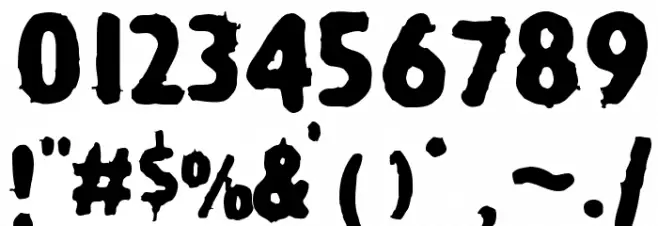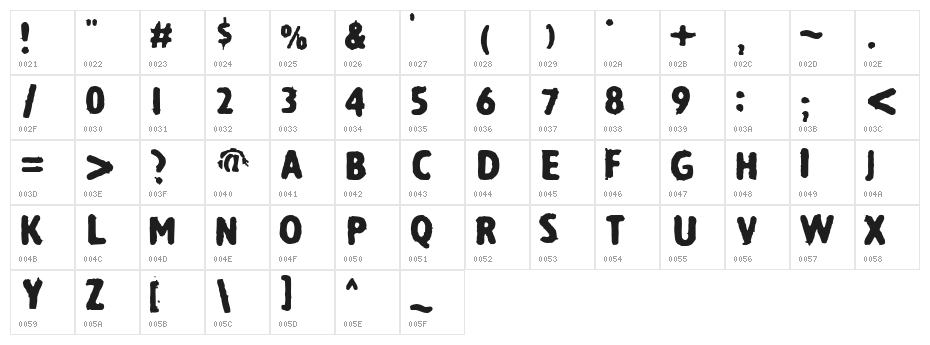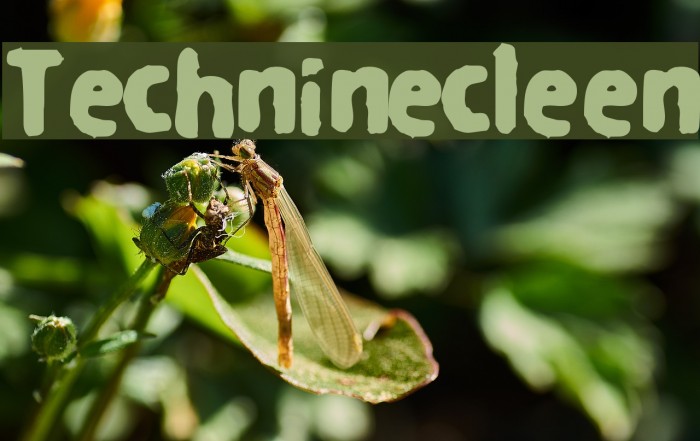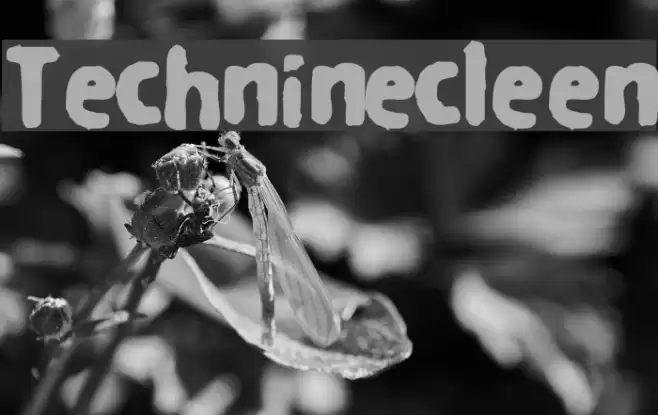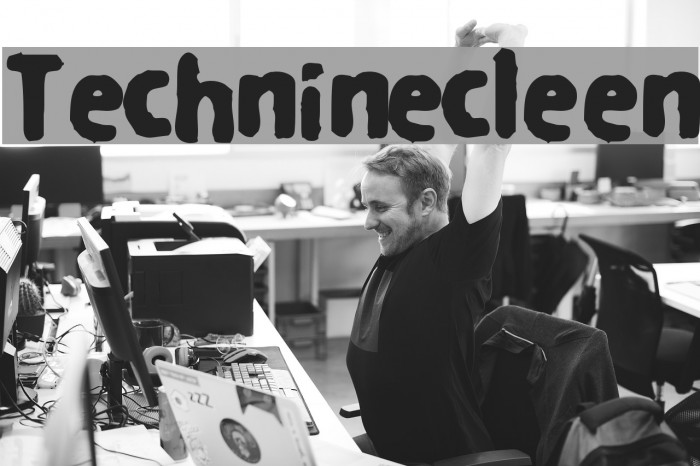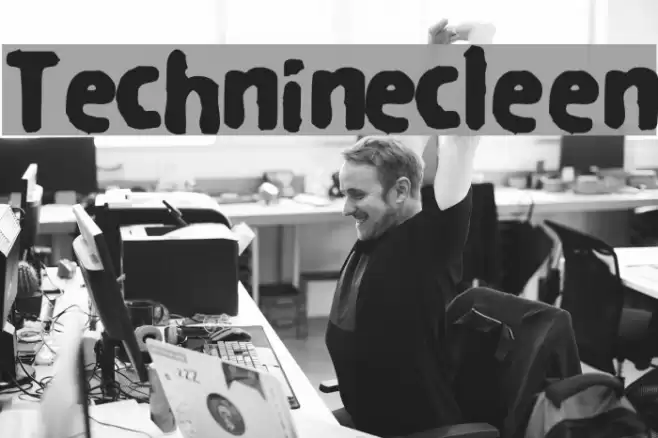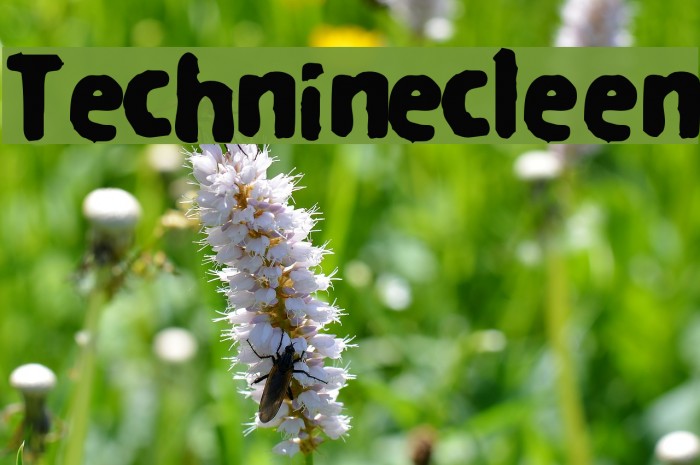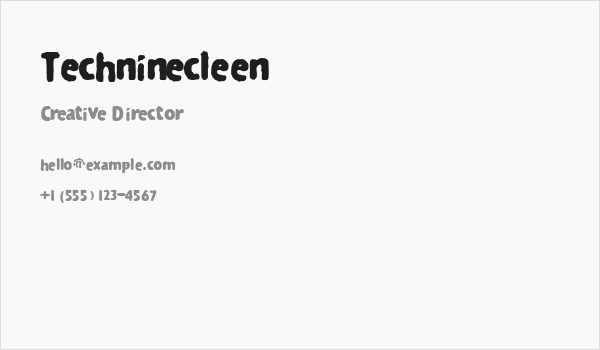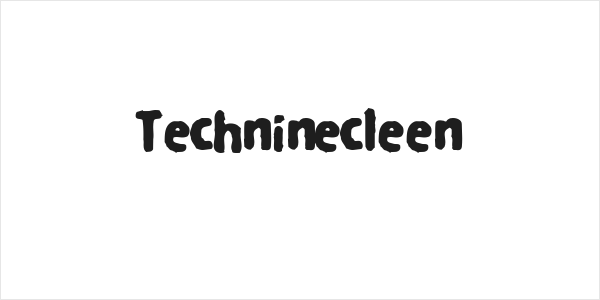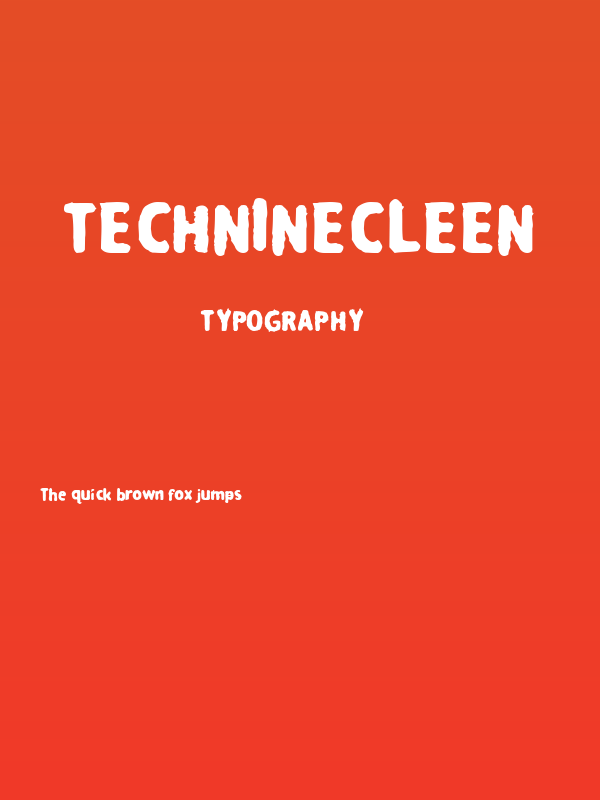
Techninecleen Font
Techninecleen Description
This font features a bold and rugged style with a hand-drawn appearance, characterized by uneven edges and a slightly distressed look. The letters are thick and substantial, giving a strong and impactful presence. The uppercase and lowercase characters maintain a consistent weight, while the numerals and special characters follow the same bold aesthetic. The overall design suggests a casual and artistic feel, making it suitable for creative and informal projects.
| Proposed Projects | Ideal for posters, album covers, artistic branding, and creative design projects. |